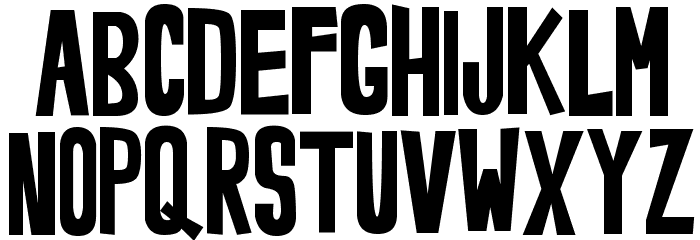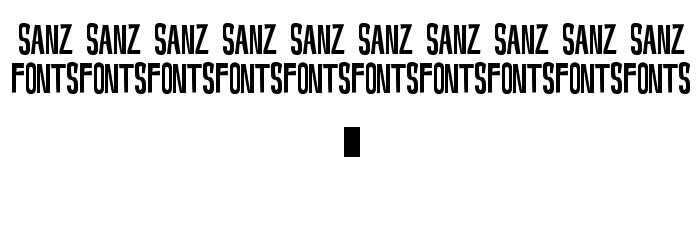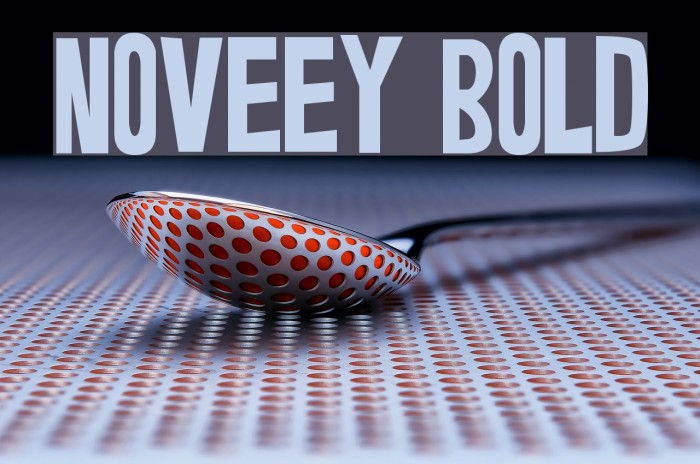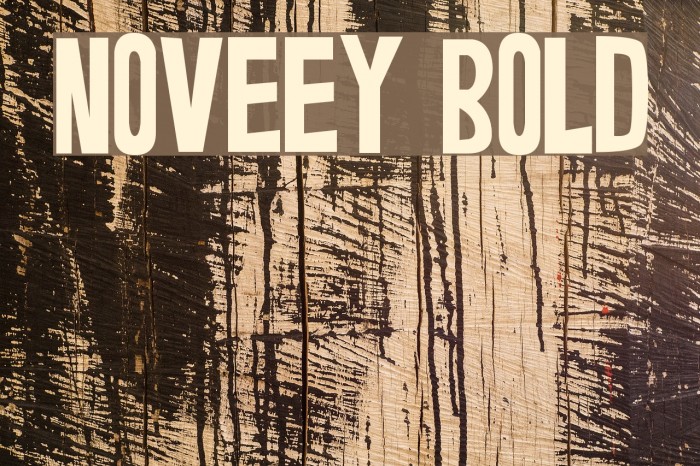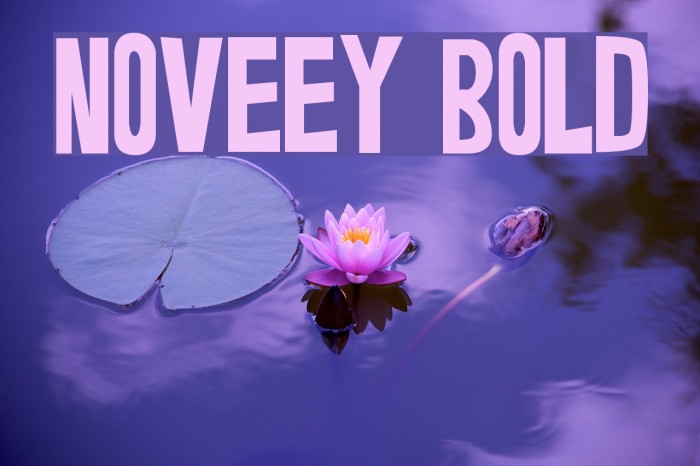
Noveey Bold Font
This bold typeface features a strong and impactful design, characterized by thick, uniform strokes and a slightly condensed appearance. The uppercase letters are tall and commanding, making a statement with their solid presence. The lowercase letters maintain the same boldness, ensuring consistency throughout the text. The font's geometric structure is evident in its clean lines and sharp angles, giving it a modern and assertive look. It is well-suited for creating attention-grabbing headlines and titles, where clarity and emphasis are paramount. The spacing between characters is tight, enhancing the compact and cohesive feel of the text.
A bold, modern typeface with thick strokes and a slightly condensed style.
- Proposed Projects: Ideal for posters, banners, branding materials, and any design requiring a strong visual impact.
- Category: Sans-Serif
- Character Spacing: Tight